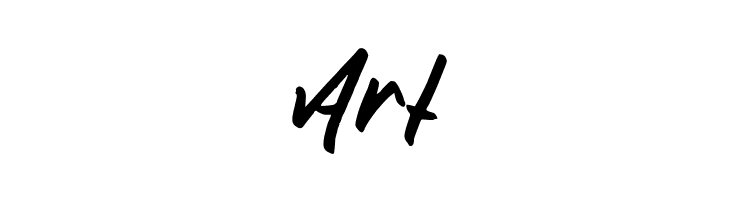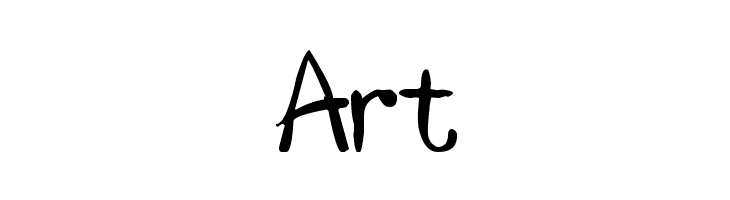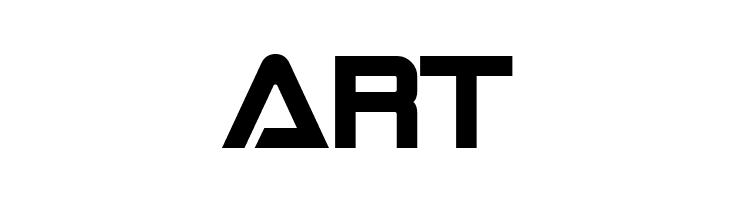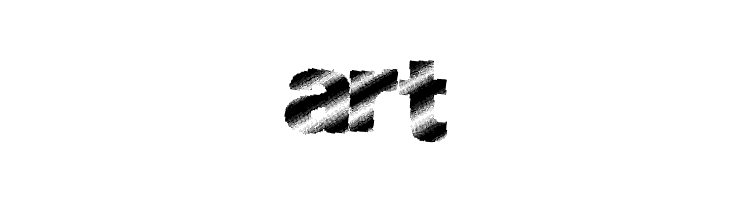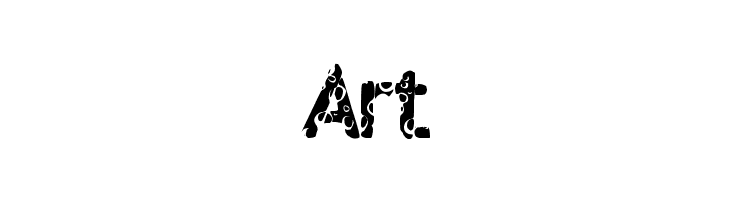
• Meistersinger Shadow
( Fonts by Renn Crump - http://moorstation.org/typoasis/designers/renncrump/ )
A bold, shadowed font with sharp serifs and a three-dimensional effect.
• Mekhasant
An elegant script font with flowing, cursive lines and intricate swashes.
• Melinda Johan
A cursive, handwritten font with elegant, flowing letters.
• Mellyna
A graceful and elegant handwritten cursive font with flowing letterforms.
• Meltburn
( Fonts by Timur Type )
A bold, wavy, and playful font.
• MeltingRecords
A playful, melting-style font with bold, outlined characters on a black background.
• Menthari
A modern, cursive font with bold, flowing strokes and elegant connections.
• Messe Duesseldorf
• MetalClash
A bold, jagged font with sharp, spiky edges for an aggressive look.
• MetalShow
A jagged, edgy font with thorn-like strokes, perfect for intense and rebellious designs.
• Metamorphosys
A hand-drawn, artistic font with irregular, brush-like strokes.
• mexicano chili sauce
A bold, decorative font with playful curves and high contrast, perfect for vintage-inspired designs.
• Meylani
A bold, expressive script font with flowing, cursive letters.
• Meytha
A graceful and sophisticated script font with flowing cursive letterforms.
• MEZAQUE Personaluse
A modern, geometric sans-serif font with clean lines and a futuristic feel.
• midnight show
An artistic, whimsical font with a gothic, hand-drawn style.
• midnight show
An artistic and whimsical font with a gothic flair and irregular strokes.
• Mighty Gizmo
( Fonts by Barry Bujol - theoriginal19.blogspot.com )
A playful, bold font with star cutouts and a modern outline style.
• Miguelito